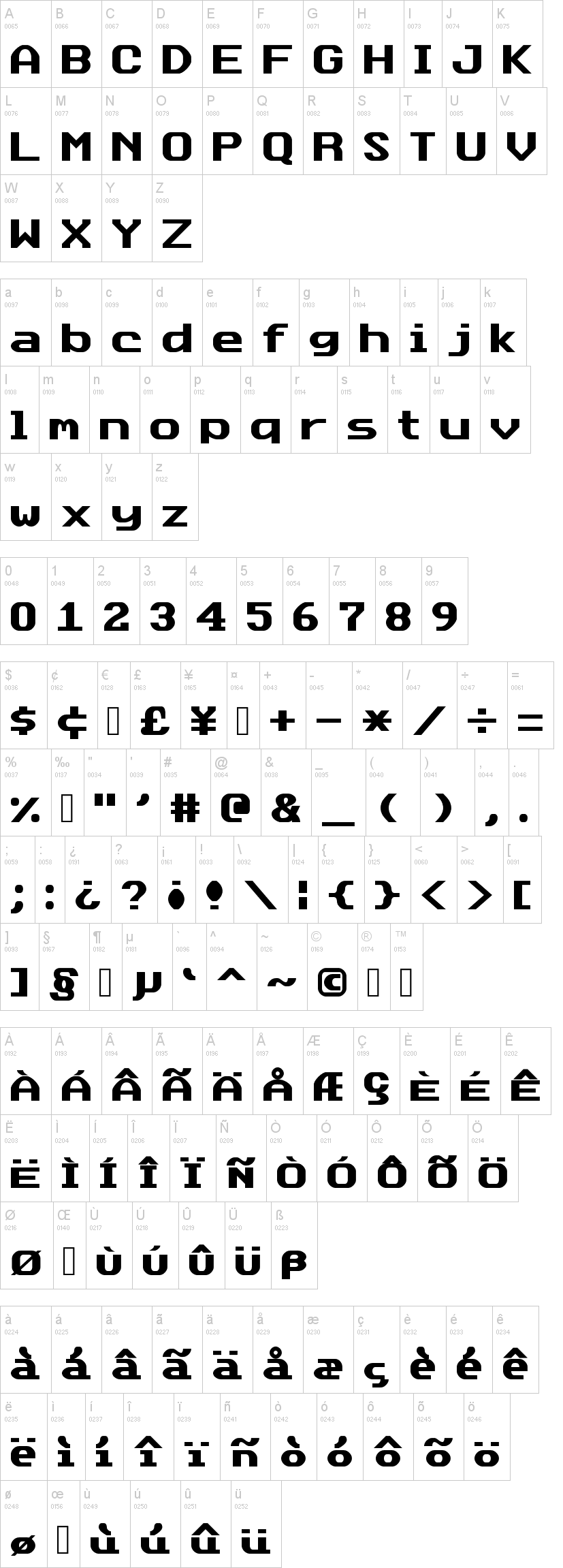
DataSunFixed.otfNote of the authorA remake of an old console style font seen in "graph" mode from Object Pascal related languages.
Comes in two versions(and files). Fixed width, and Justified width.
Extended character set may not be exactly perfect.